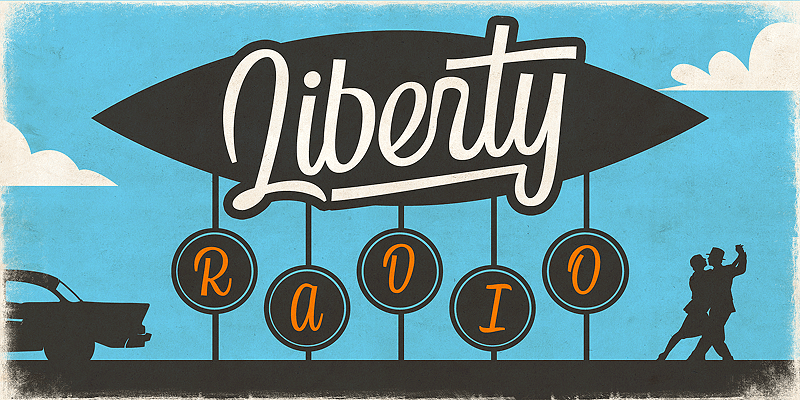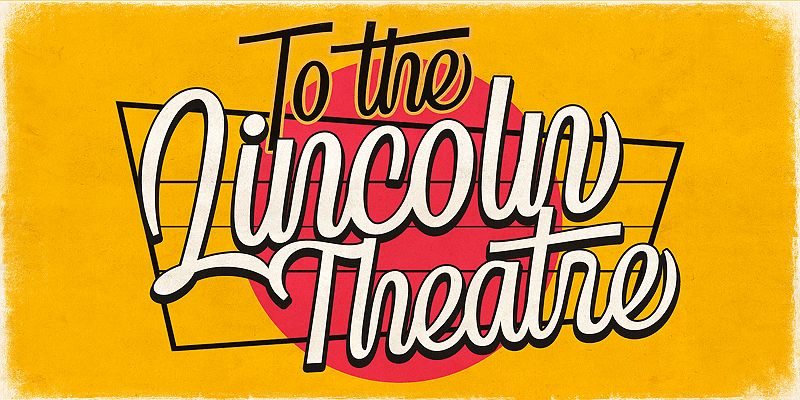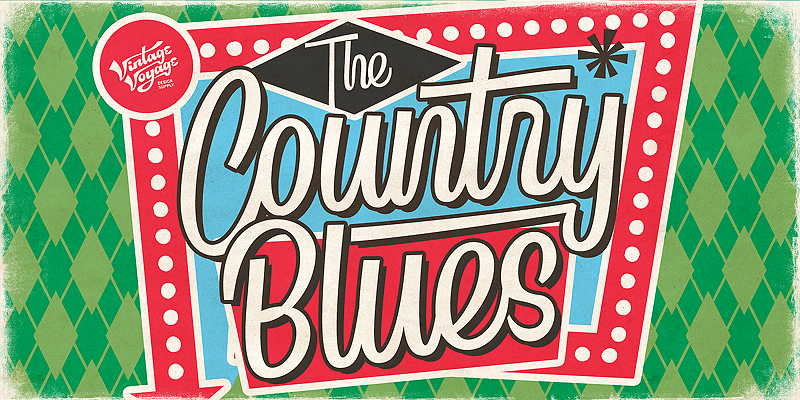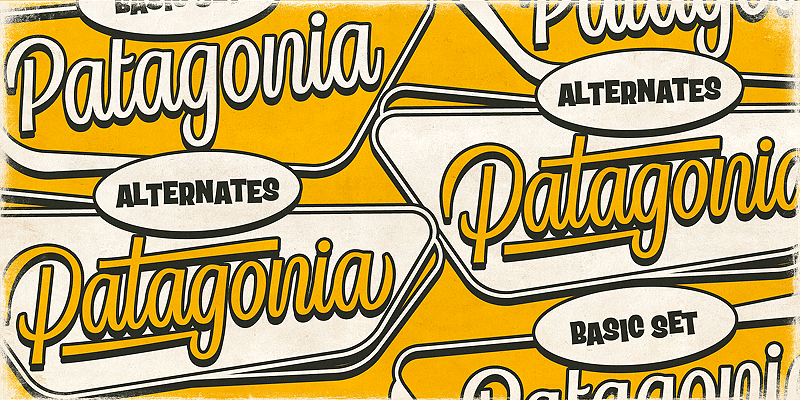
The Country Blues is a lively script inspired by vintage vinyl covers, retro sports culture, and classic rock’n’roll vibes. Full of rhythm and flair with alternate capitals and unique lowercase features like underlined ‘g’, ‘j’, ‘y’, and a special long-stroke ‘t’. Available in both smooth and rough versions, perfect for adding texture or a slightly eerie feel. Ideal for album art, branding, posters, and retro-themed designs.